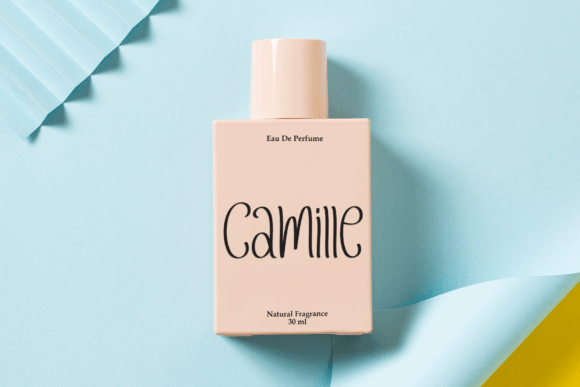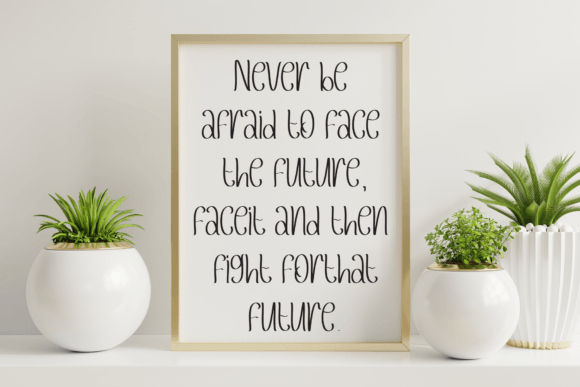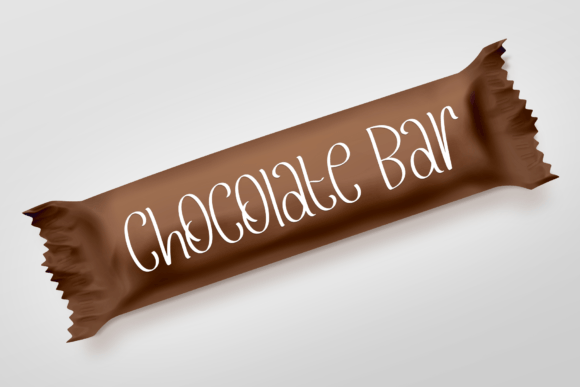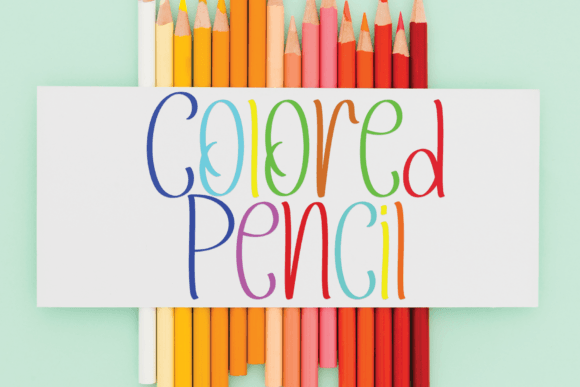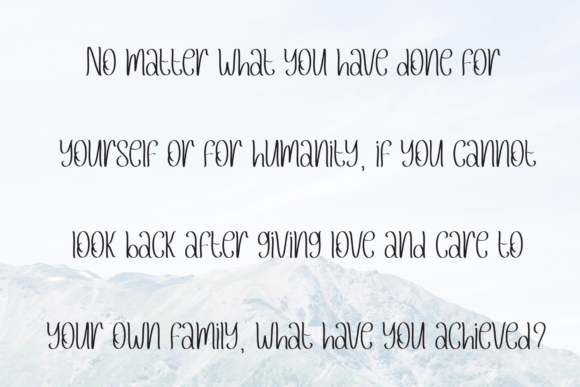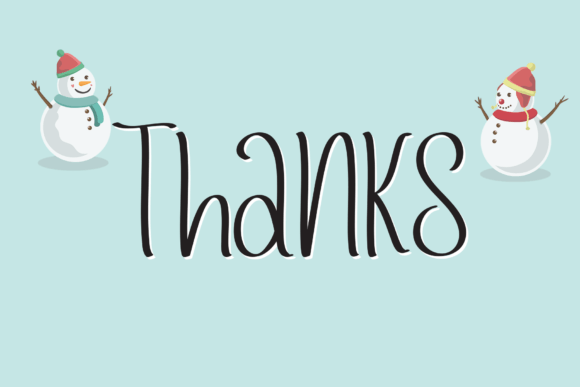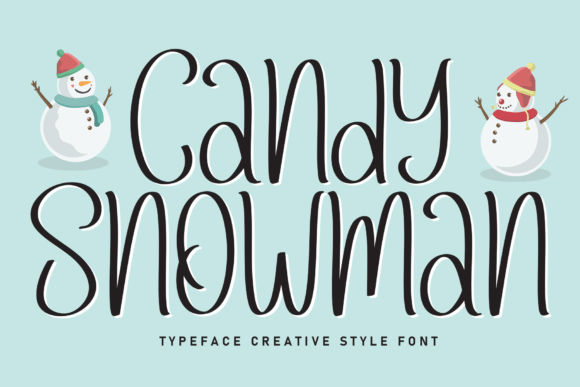
Candy Snowman Font: The Sweetest Addition to Your Design Collection
Are you a designer, crafter, or DIY enthusiast looking for a font that can add a touch of whimsy and fun to your projects? Look no further than the Candy Snowman Font! This sweet and friendly handwritten font is perfect for a wide range of designs, from holiday-themed crafts to everyday stationery. In this article, we’ll dive into the world of Candy Snowman Font and explore its unique features, uses, and benefits.
What is Candy Snowman Font?
Candy Snowman Font is a beautiful, handwritten font that is sure to capture the hearts of designers and crafters alike. Its natural and unique style makes it incredibly fitting to a large pool of designs, from playful holiday cards to charming party invitations. The font’s sweet and friendly vibe is perfect for adding a personal touch to your projects, making them stand out from the crowd.
Unique Features of Candy Snowman Font
So, what sets Candy Snowman Font apart from other fonts out there? Here are a few of its unique features:
• Handwritten style: Candy Snowman Font has a beautiful, handwritten style that gives it a personal and friendly feel.
• Natural and unique: The font’s natural and unique style makes it perfect for a wide range of designs, from rustic to modern.
• Versatile: Candy Snowman Font can be used for a variety of projects, including holiday crafts, party invitations, stationery, and more.
• Easy to read: Despite its playful style, Candy Snowman Font is easy to read, making it perfect for both digital and print projects.
Uses of Candy Snowman Font
Candy Snowman Font is incredibly versatile, making it perfect for a wide range of projects. Here are a few ideas to get you started:
• Holiday crafts: Use Candy Snowman Font to create festive holiday cards, gift tags, and decorations.
• Party invitations: Add a touch of whimsy to your party invitations with Candy Snowman Font.
• Stationery: Use Candy Snowman Font to create charming stationery, including notebooks, journals, and greeting cards.
• Digital projects: Candy Snowman Font is perfect for digital projects, including social media graphics, blog posts, and website headers.
Benefits of Using Candy Snowman Font
So, why should you choose Candy Snowman Font for your next project? Here are a few benefits:
• Adds a personal touch: Candy Snowman Font adds a personal and friendly touch to your projects, making them stand out from the crowd.
• Versatile: Candy Snowman Font can be used for a wide range of projects, making it a great addition to your design collection.
• Unique: The font’s unique style ensures that your projects will be one-of-a-kind.
Tips for Using Candy Snowman Font
Here are a few tips for using Candy Snowman Font:
• Pair with other fonts: Pair Candy Snowman Font with other fonts to create a unique and interesting contrast.
• Experiment with colors: Experiment with different colors to find the perfect match for your project.
• Use in combination with graphics: Use Candy Snowman Font in combination with graphics and illustrations to add an extra layer of interest to your project.
In conclusion, Candy Snowman Font is a sweet and friendly handwritten font that is perfect for designers, crafters, and DIY enthusiasts. Its natural and unique style makes it incredibly fitting to a large pool of designs, and its versatility ensures that it can be used for a wide range of projects. With its ease of use, unique features, and benefits, Candy Snowman Font is a great addition to any design collection. So why not give it a try and see what sweet creations you can come up with?